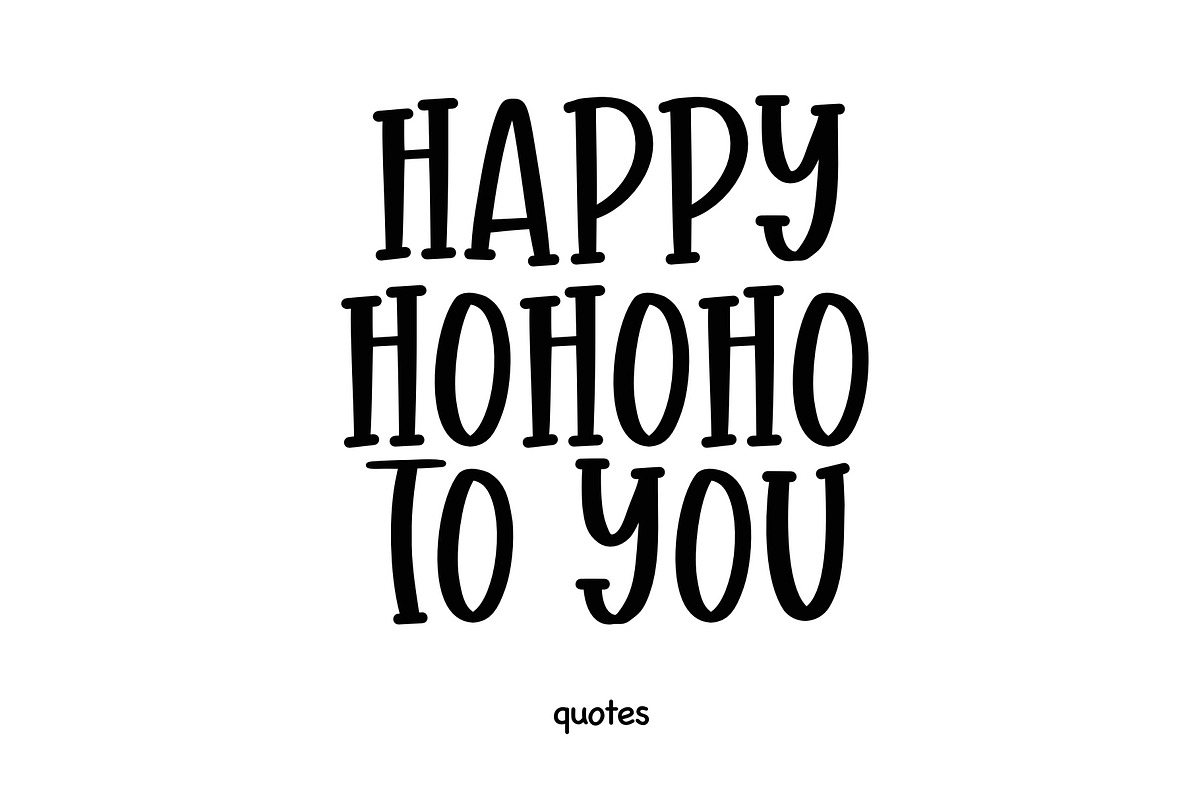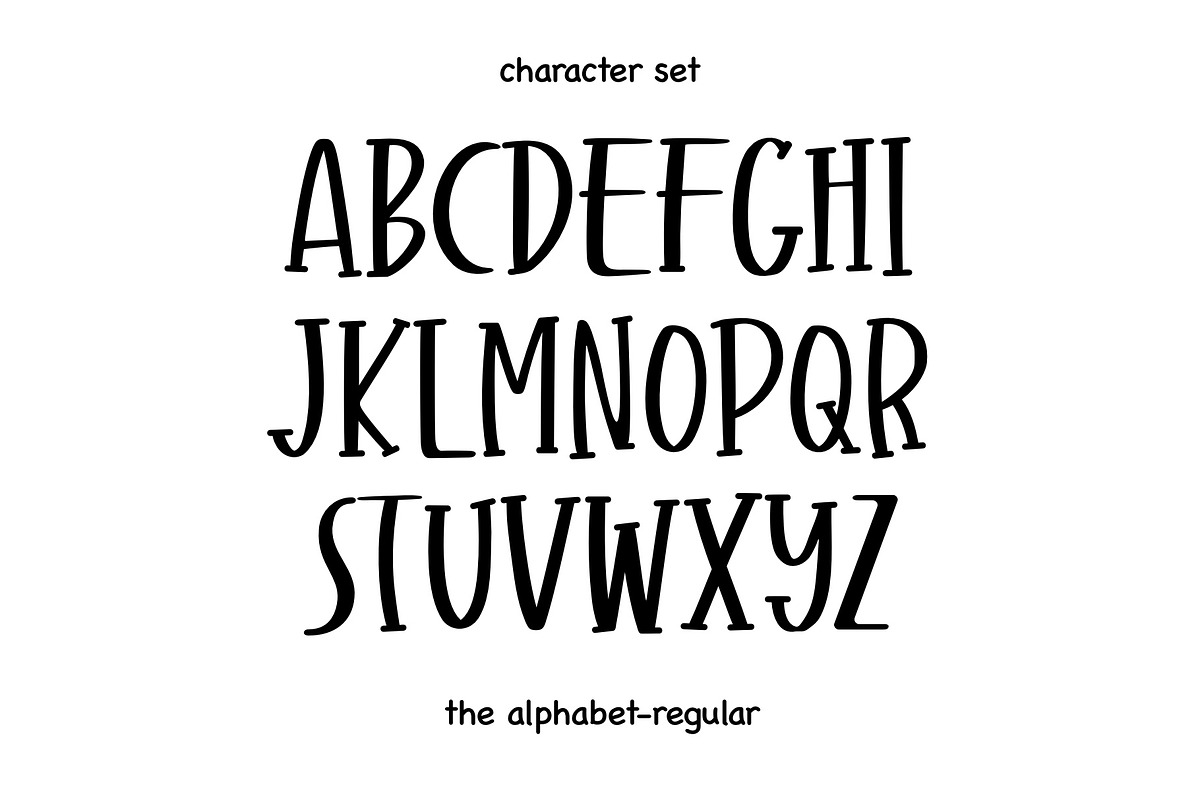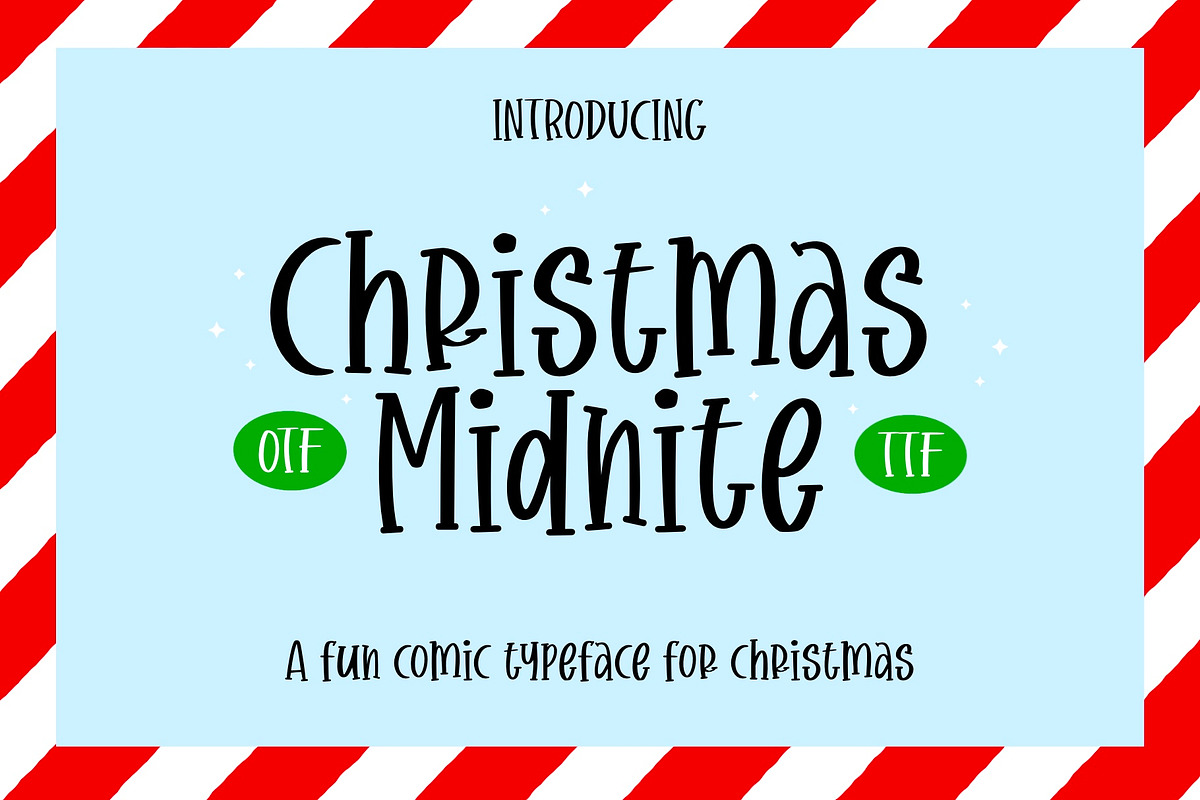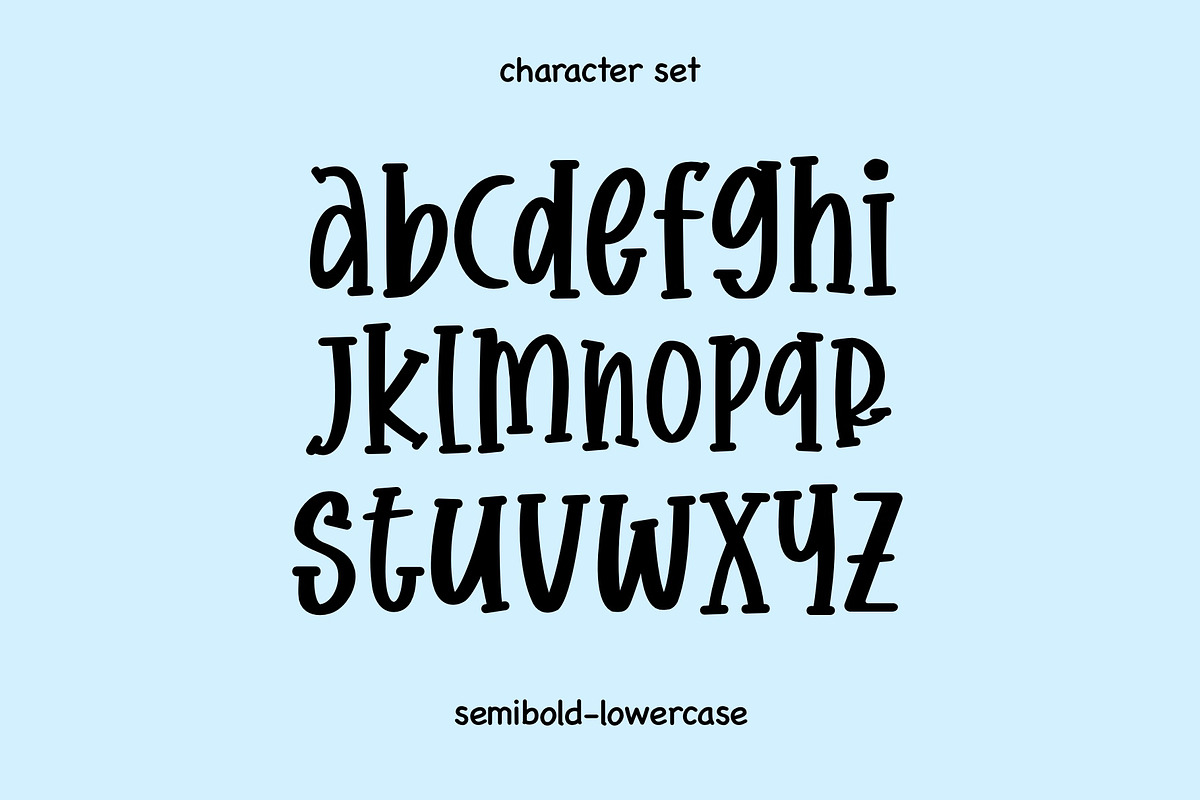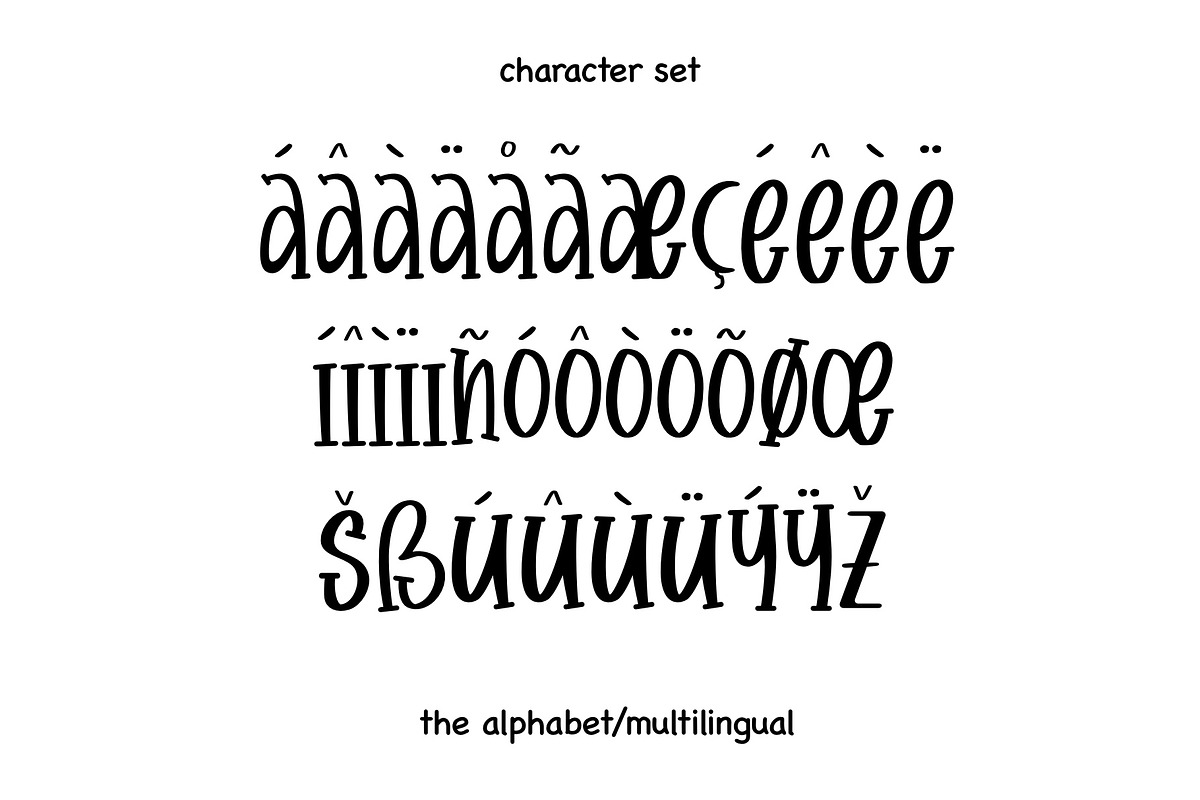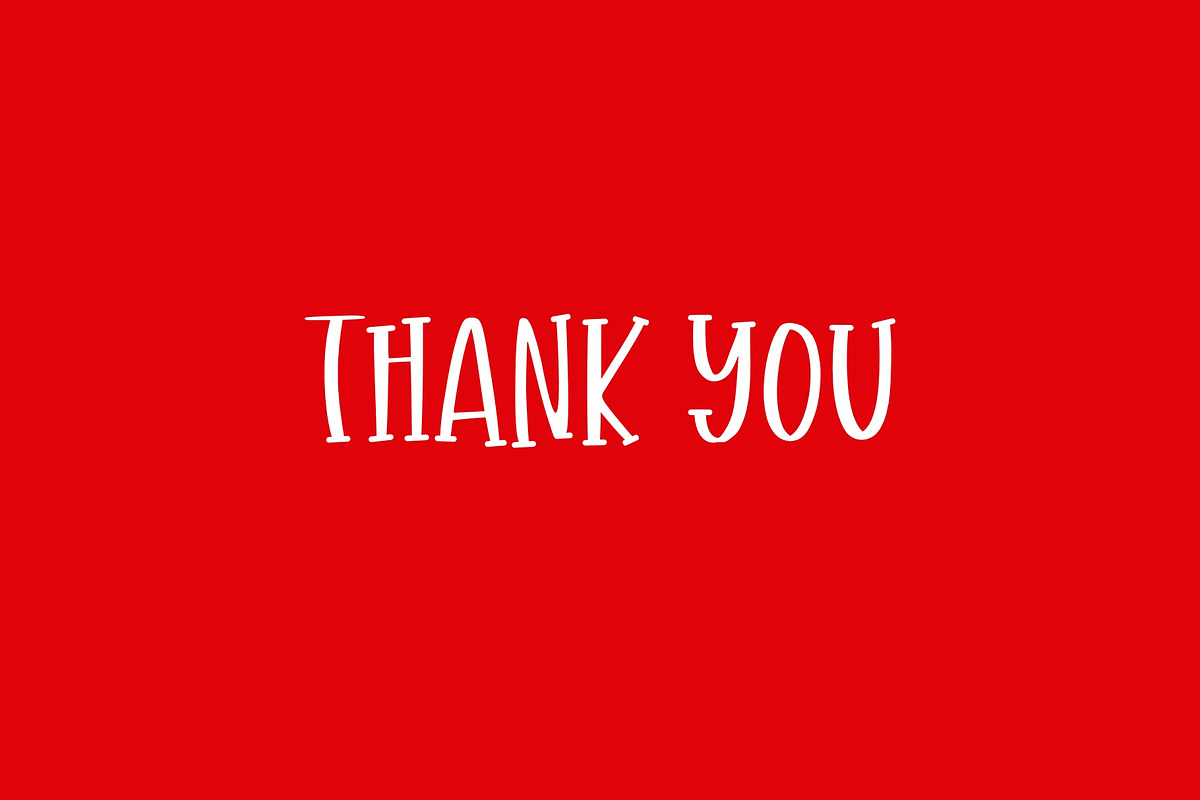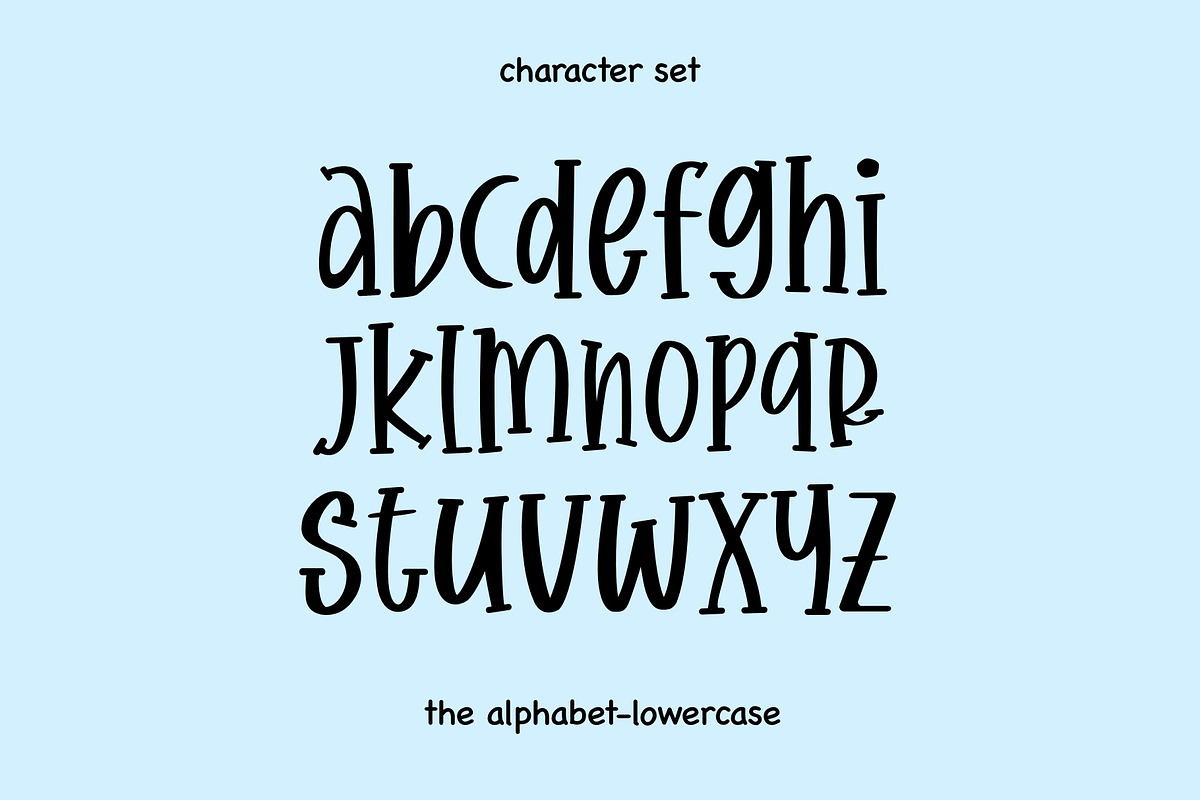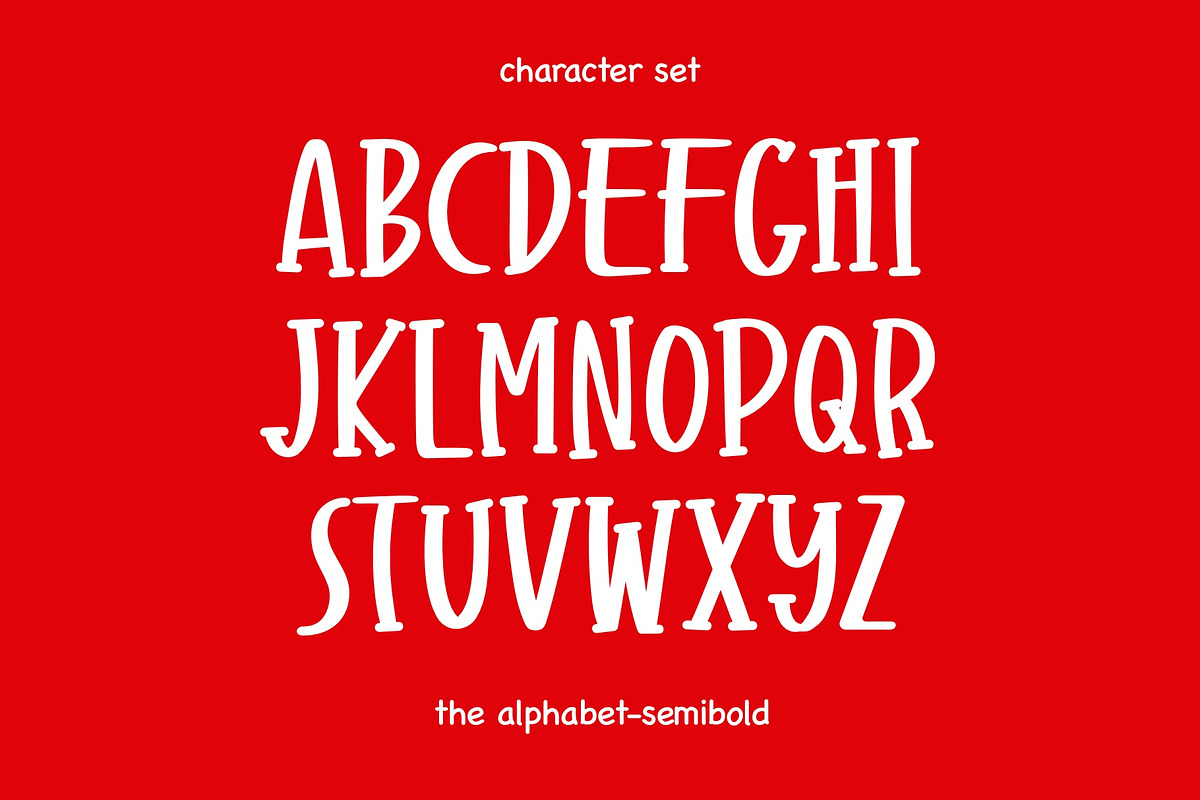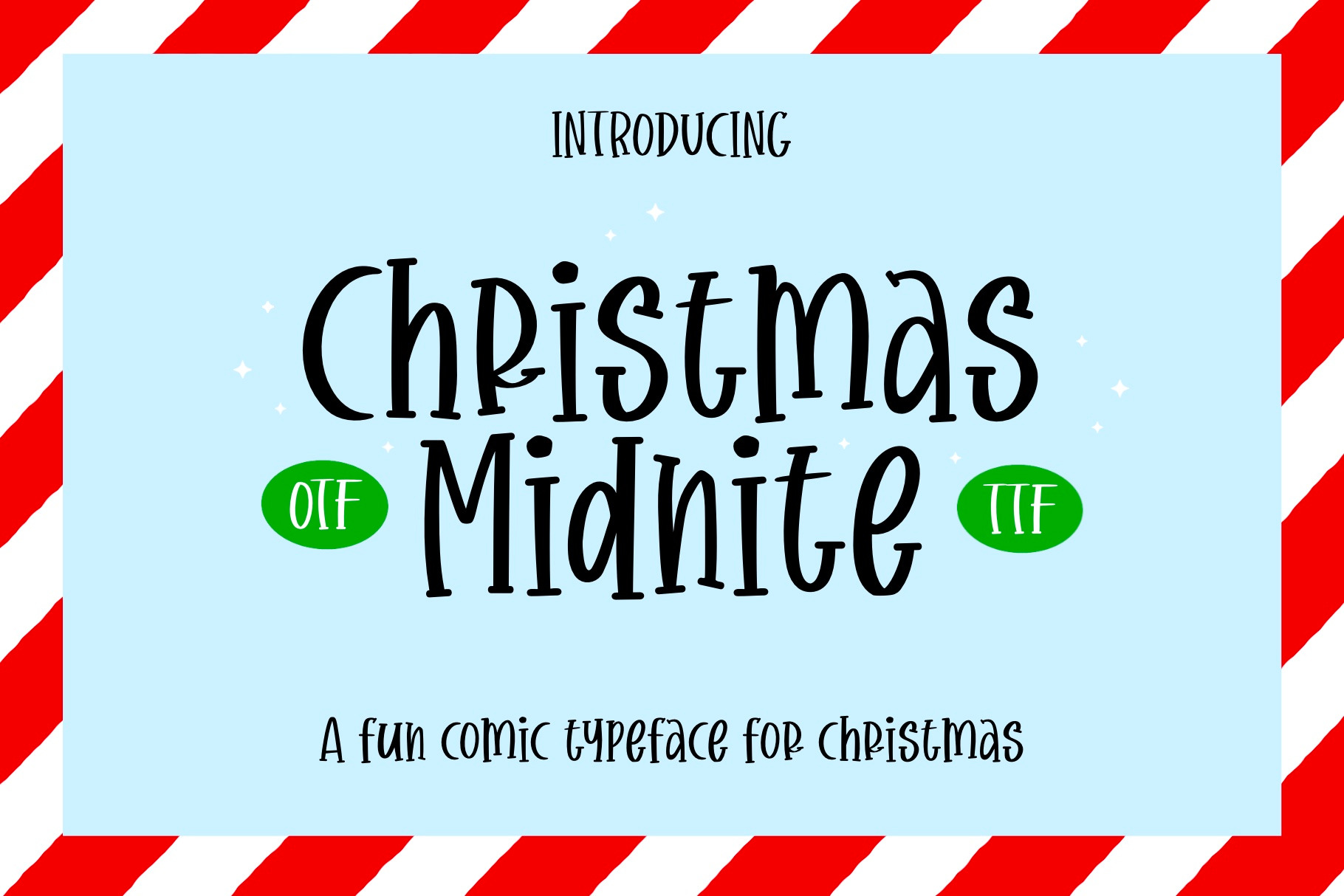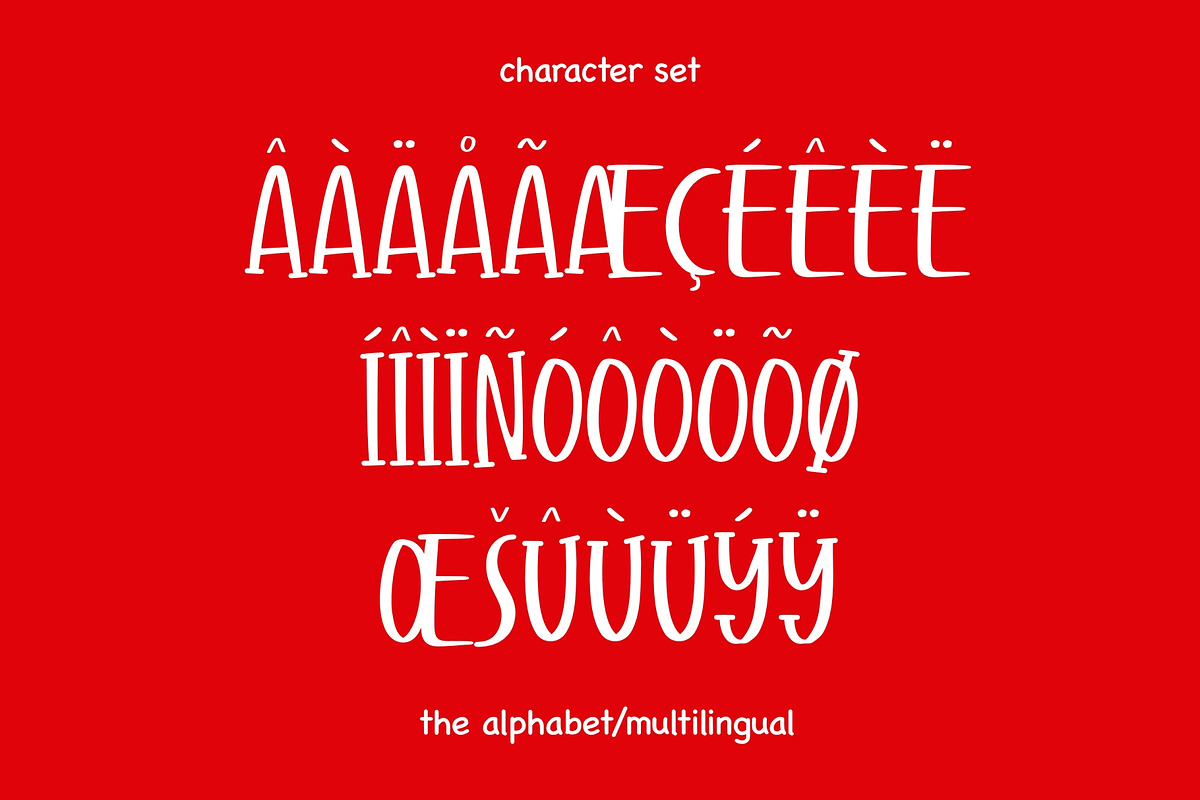
Christmas Midnite Font - Fun Font
Christmas Midnite is a Sans fun font style that brings a festive and playful spirit to any design. This typeface available in SVG format, compatible with advanced tools such as Cricut and Glowforge, and for use in Procreate. This font is also included in Accent Font or Multilingual Font. Crafted with a modern and clean sans-serif structure, this font adds a touch of whimsy and holiday cheer to your projects. Whether you're creating holiday-themed cards, invitations, or promotional materials, Christmas Midnite's lively and approachable design will infuse your text with a cheerful personality, making it the perfect choice for spreading seasonal warmth and merriment.